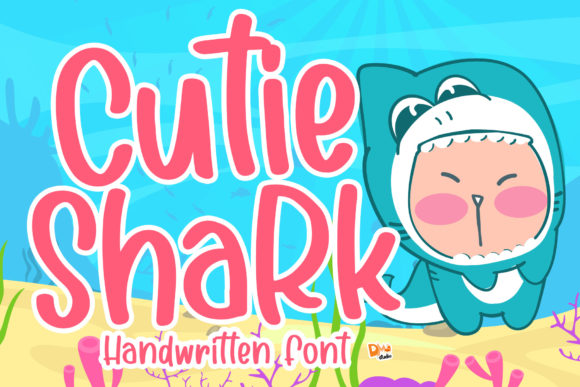
Introducing Cutie Shark Font: The Ultimate Handwritten Font for Creative Projects
In the world of typography, fonts play a crucial role in bringing creative ideas to life. A well-designed font can elevate a design project from ordinary to extraordinary, making it stand out from the crowd. If you’re looking for a font that embodies fun, quirkiness, and authenticity, look no further than Cutie Shark Font. This enchanting handwritten font is designed to turn any creative idea into a true standout, making it perfect for a wide range of design projects.
Key Features of Cutie Shark Font
- Handwritten style: Cutie Shark Font boasts a unique, handwritten style that adds a touch of personality to any design project.
- Fun and quirky: The font’s playful and whimsical design makes it perfect for projects that require a dash of humor and fun.
- Authentic feel: Cutie Shark Font has an authentic, organic feel that makes it relatable and engaging.
- Versatile: This font can be used for a wide range of design projects, from branding and headings to wedding designs, invitations, signatures, logos, labels, and more.
Design Applications for Cutie Shark Font
Cutie Shark Font is an incredibly versatile font that can be used for various design projects. Here are some ideas to get you started:
- Branding: Use Cutie Shark Font to create a unique and memorable brand identity that stands out from the competition.
- Wedding designs: Add a touch of whimsy and romance to your wedding designs, including invitations, programs, and decorations.
- Headings and titles: Use Cutie Shark Font to create eye-catching headings and titles for your blog posts, articles, and social media content.
- Invitations and greeting cards: Create personalized and playful invitations and greeting cards for special occasions.
- Logos and labels: Use Cutie Shark Font to create custom logos and labels that reflect your brand’s personality.
Typography Tips for Using Cutie Shark Font
To get the most out of Cutie Shark Font, here are some typography tips to keep in mind:
- Pair with contrasting fonts: Pair Cutie Shark Font with a contrasting font to create visual interest and hierarchy.
- Experiment with colors: Try out different colors and color combinations to add depth and personality to your design.
- Play with font sizes: Experiment with different font sizes to create visual hierarchy and emphasis.
- Use font variations: Use font variations, such as bold and italic, to add emphasis and create visual interest.
Design Inspiration with Cutie Shark Font
Cutie Shark Font is a versatile font that can be used in a variety of design contexts. Here are some design inspiration ideas to get you started:
- Playful packaging design: Use Cutie Shark Font to create playful and eye-catching packaging designs that stand out on store shelves.
- Whimsical web design: Add a touch of whimsy and fun to your web design with Cutie Shark Font.
- Creative editorial design: Use Cutie Shark Font to create engaging and creative editorial designs, such as magazines and newspapers.
Benefits of Using Cutie Shark Font
Here are some benefits of using Cutie Shark Font for your design projects:
- Unique and memorable: Cutie Shark Font is a unique and memorable font that will help your design project stand out.
- Easy to read: Despite its playful design, Cutie Shark Font is easy to read and understand.
- Versatile: Cutie Shark Font can be used for a wide range of design projects, making it a great addition to your font library.
- Time-saving: With Cutie Shark Font, you can save time and effort in creating custom designs from scratch.
In conclusion, Cutie Shark Font is an enchanting handwritten font that embodies fun, quirkiness, and authenticity. With its versatile design and wide range of applications, it’s perfect for designers, entrepreneurs, and creatives looking to elevate their design projects to the highest level. Whether you’re creating branding, headings, wedding designs, invitations, signatures, logos, labels, or more, Cutie Shark Font is sure to turn your creative ideas into true standouts.